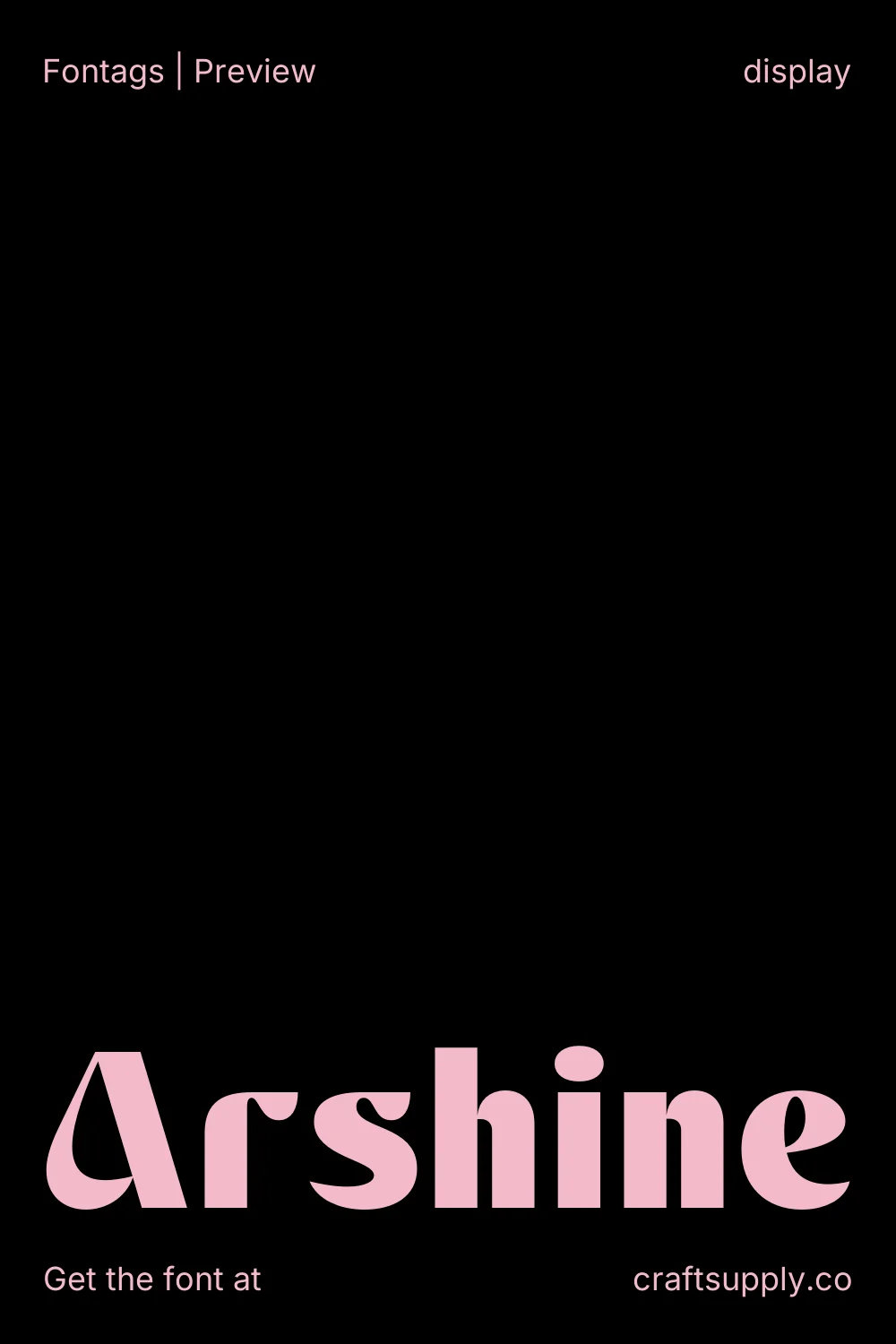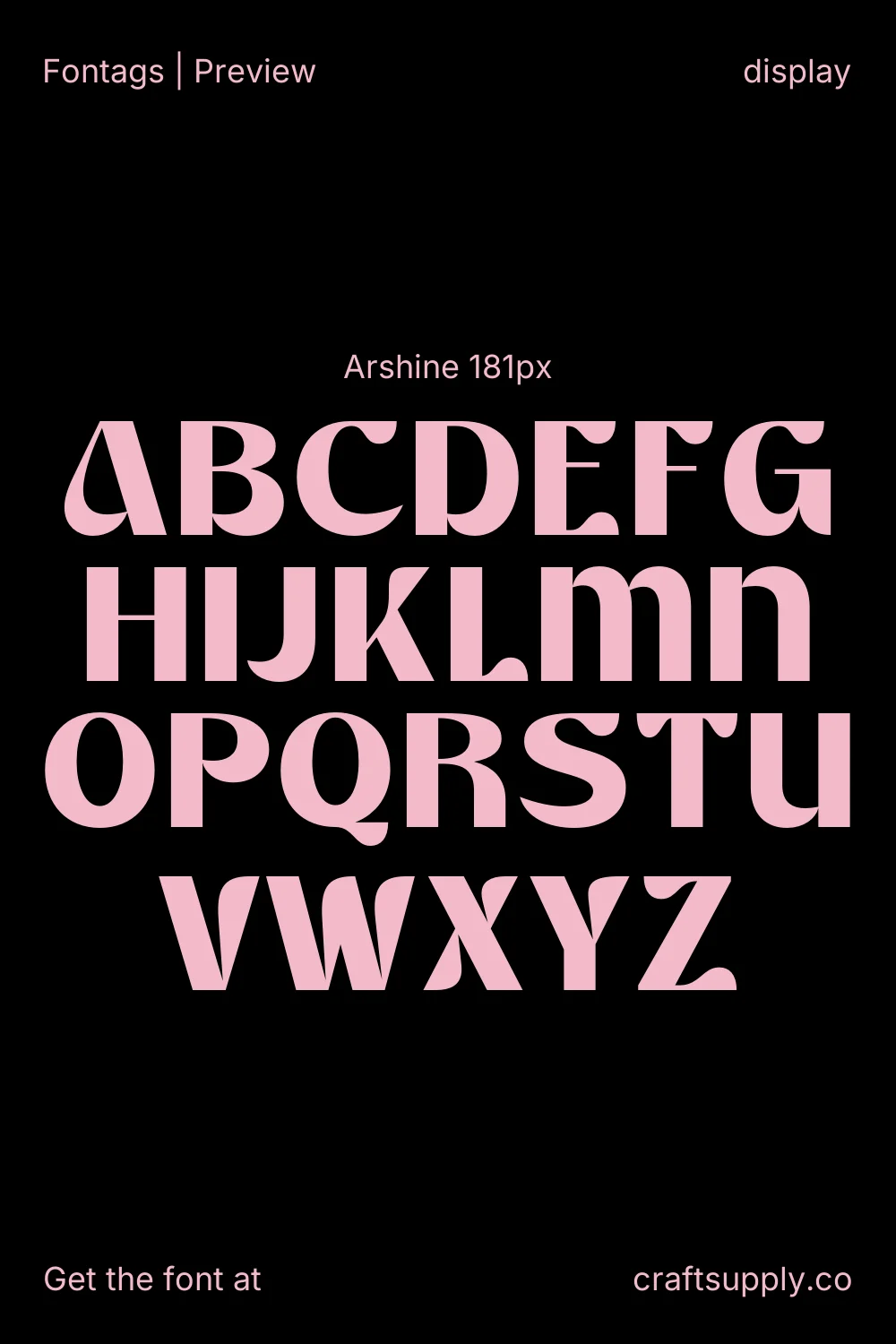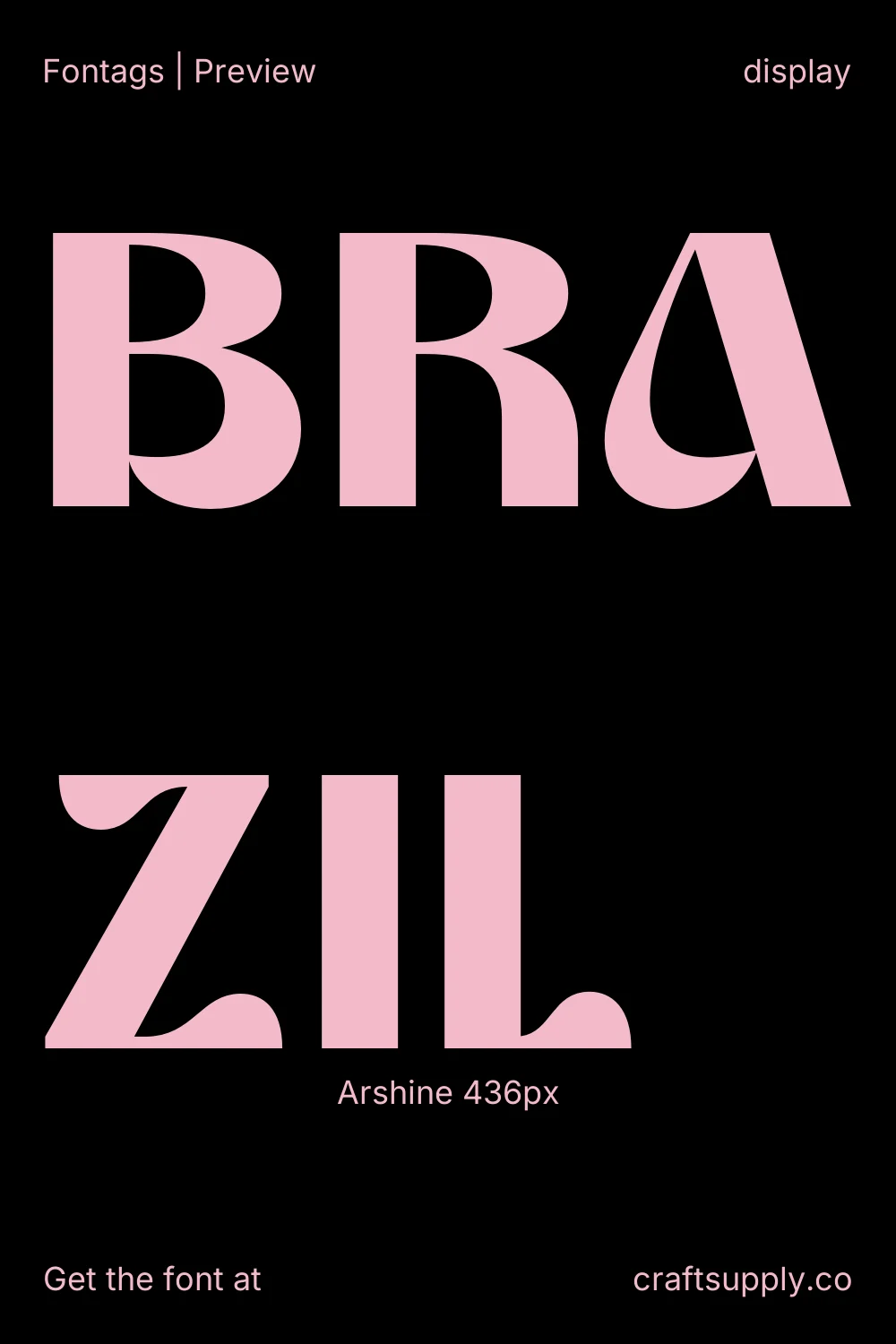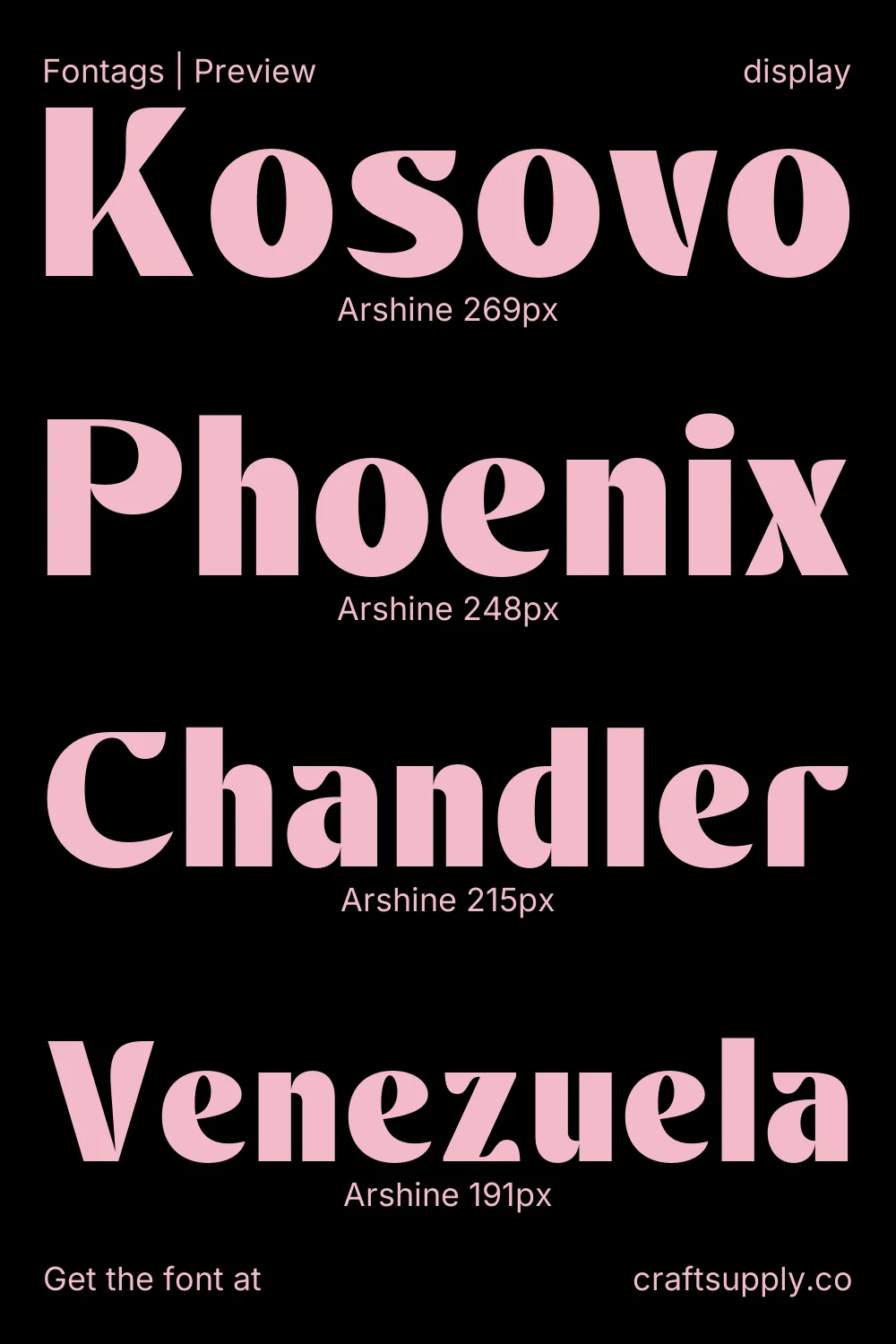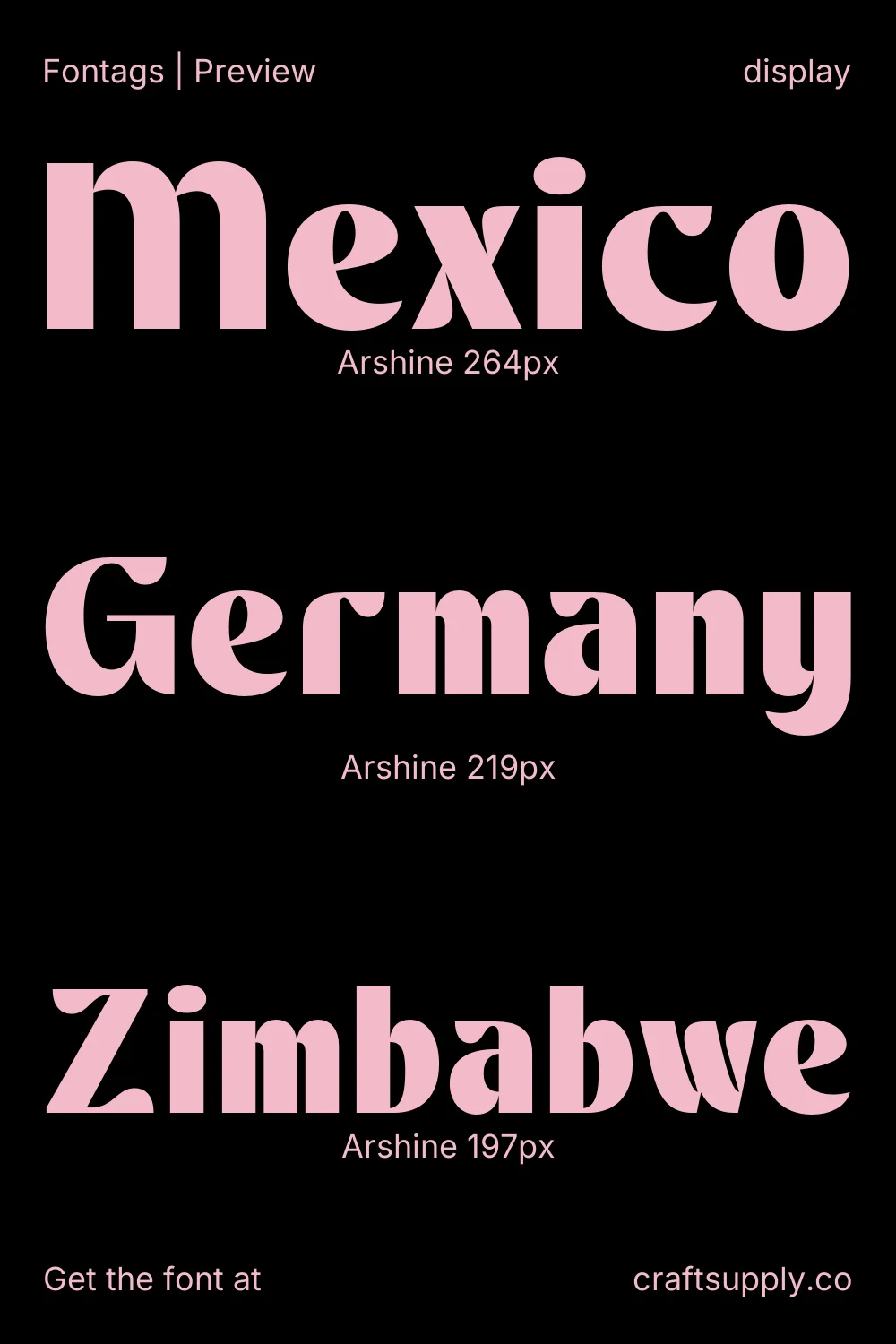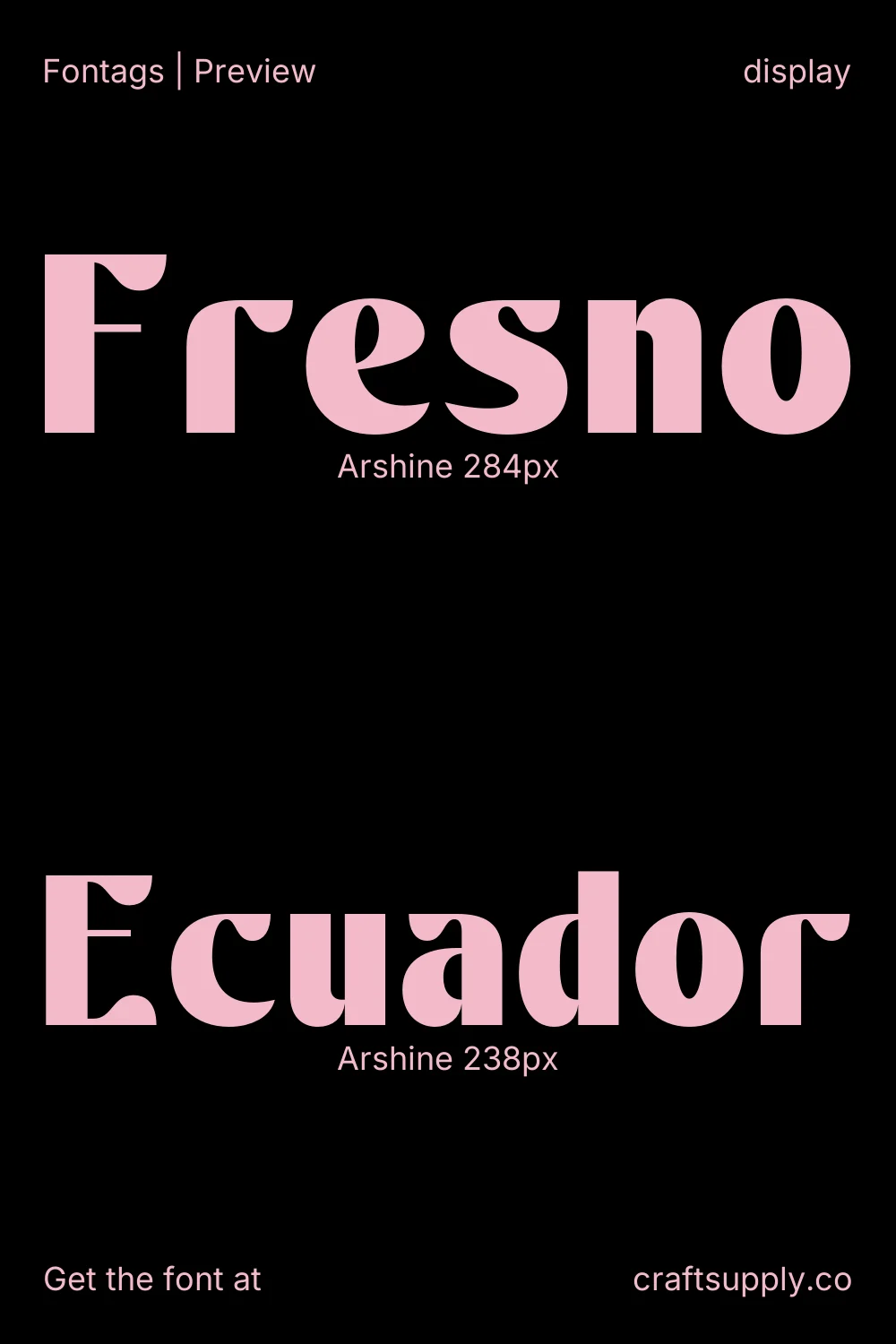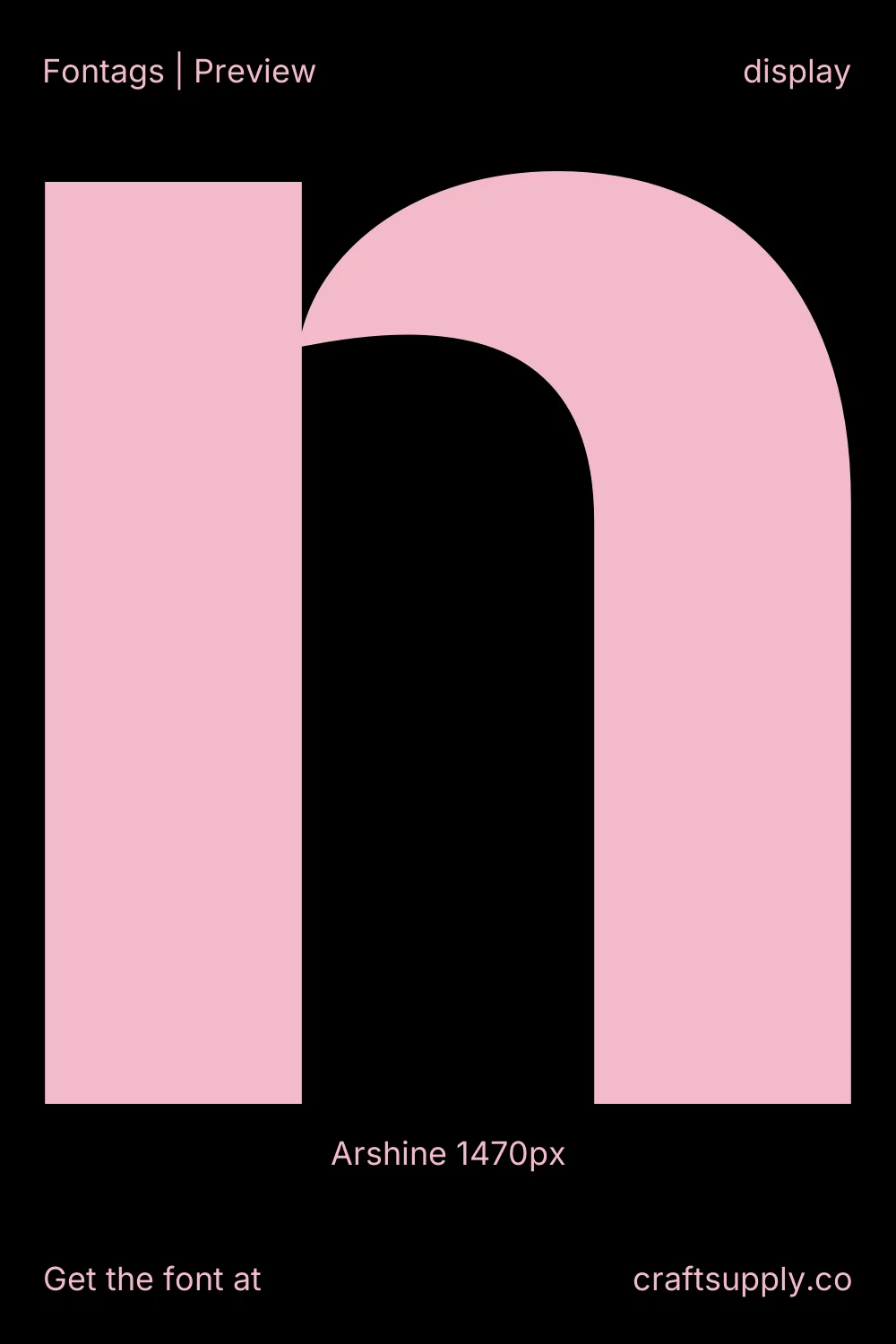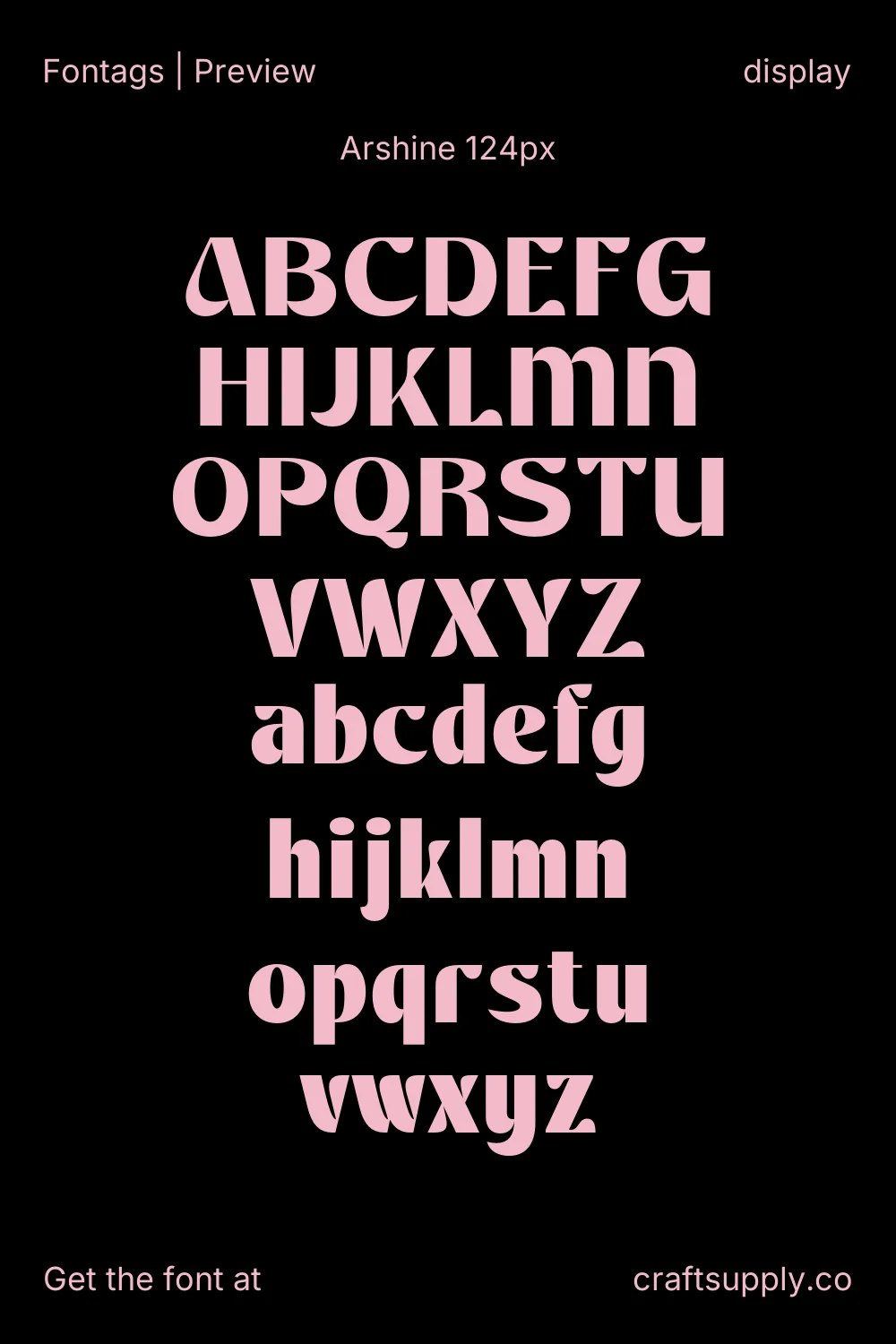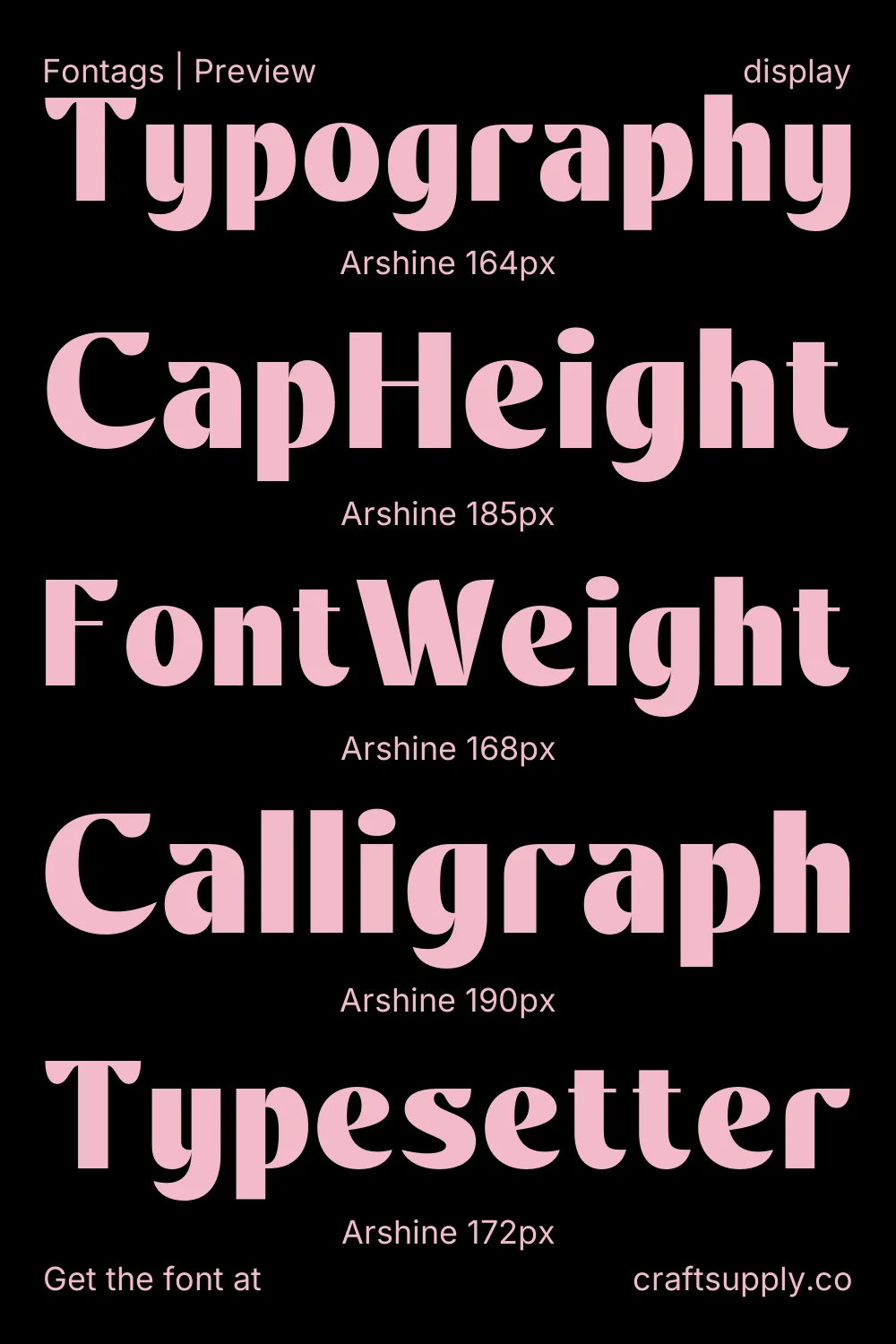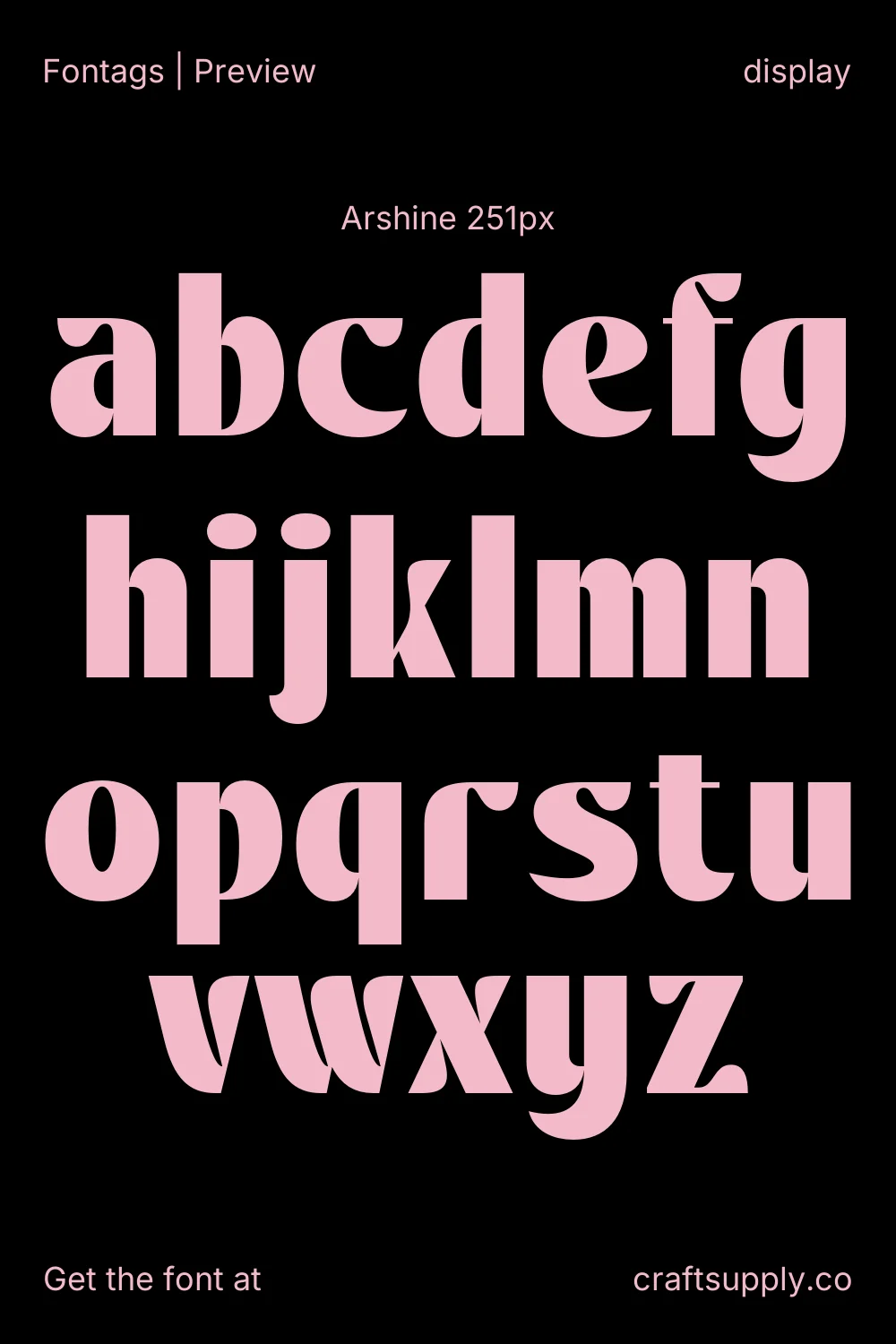
Arshine
Arshine is a bold retro sans serif font that exudes funky, nostalgic vibes. Its strong, assertive characters are perfect for eye-catching headlines, logos, branding, and posters. With a playful personality and versatile appeal, Arshine adds a touch of retro charm to any design project.